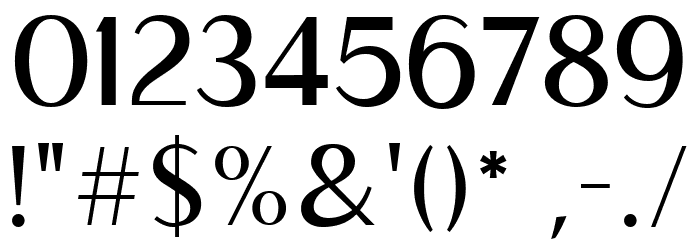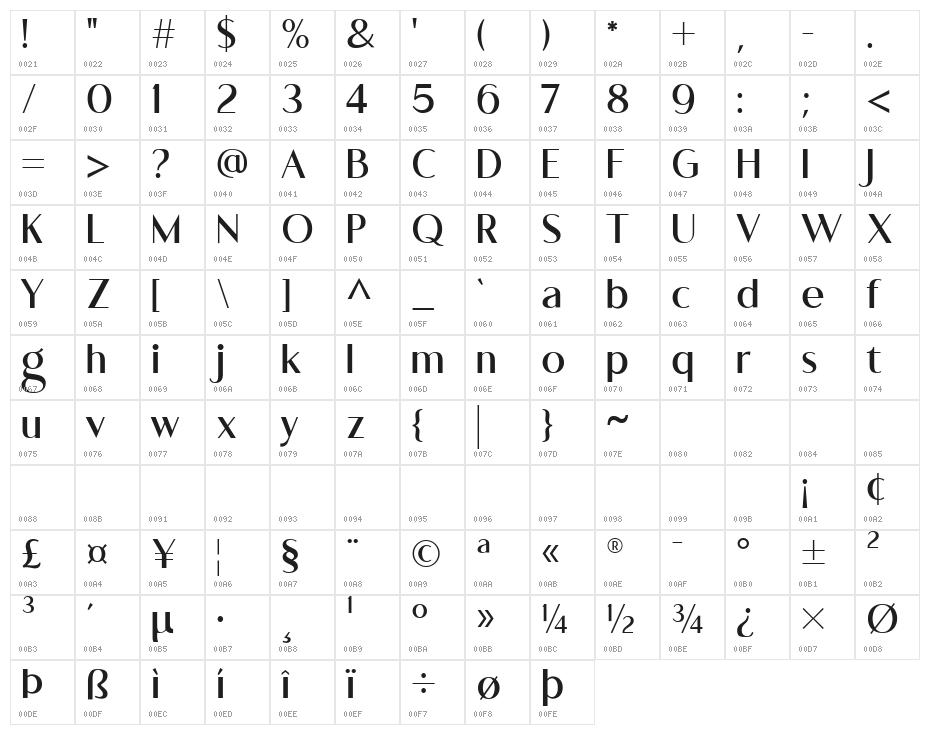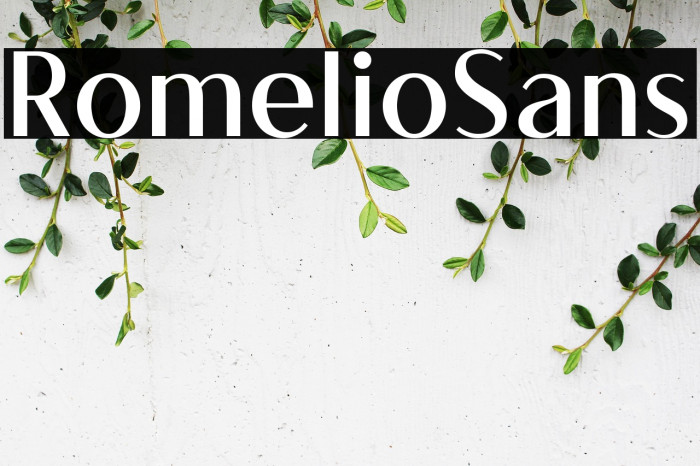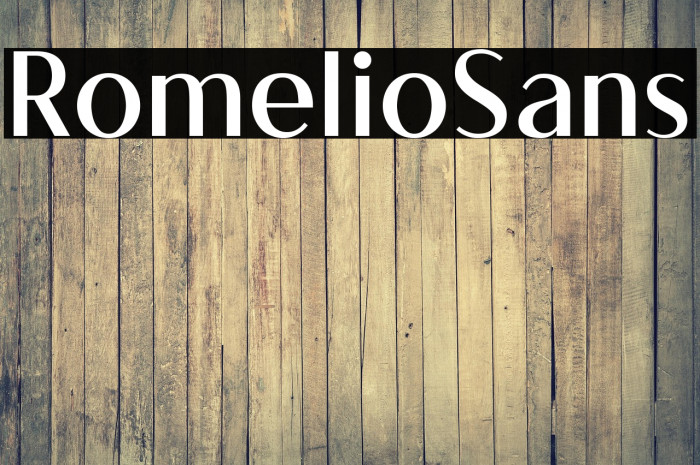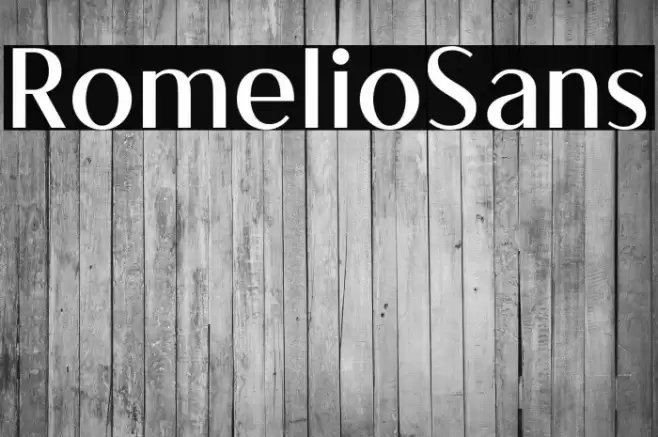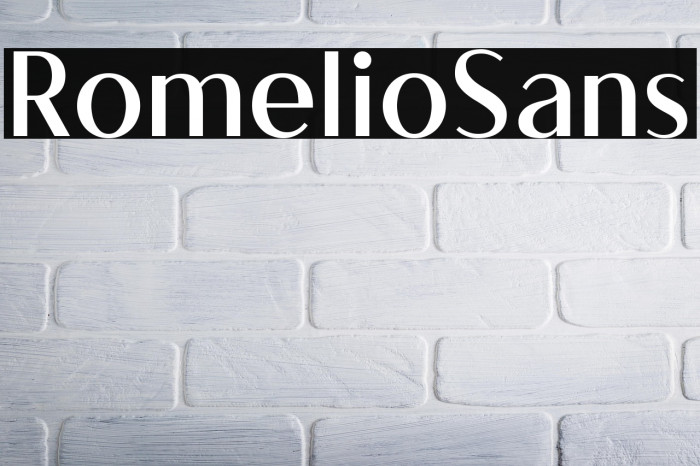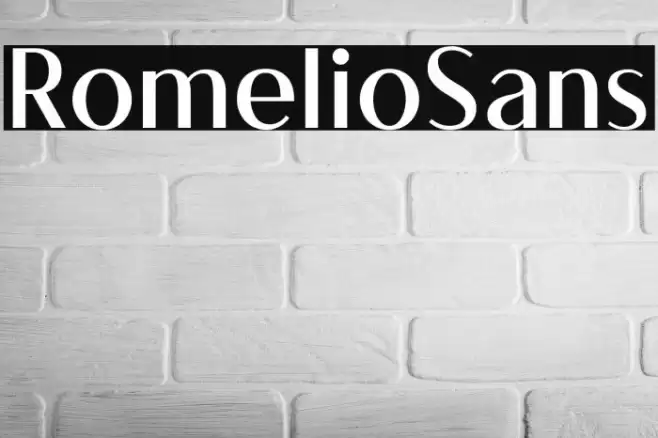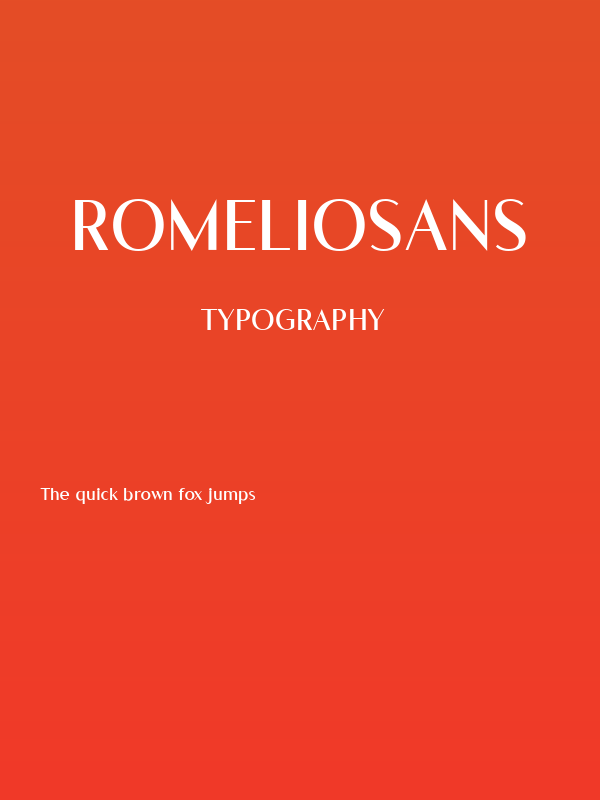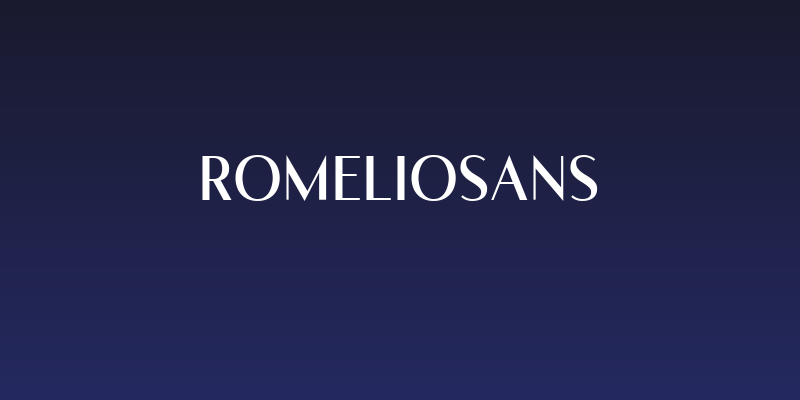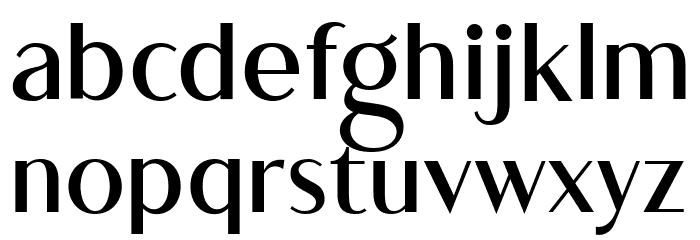
RomelioSans Font
RomelioSans Description
This font exhibits a clean and modern sans-serif style, characterized by its sleek lines and balanced proportions. The uppercase letters are tall and commanding, while the lowercase letters maintain a harmonious flow, making it versatile for various design applications. The numerals are clear and legible, ensuring readability in both digital and print formats. Special characters are well-integrated, providing a comprehensive set for diverse uses. The overall design is minimalistic yet impactful, suitable for contemporary branding and editorial projects.